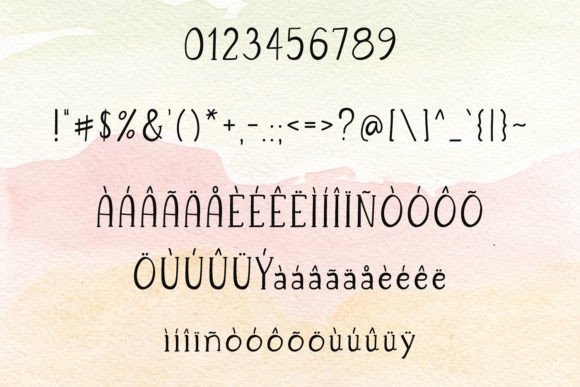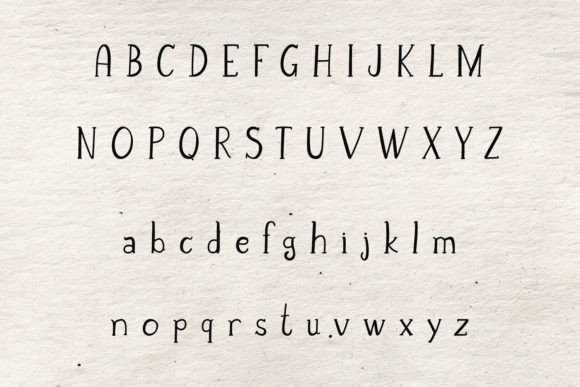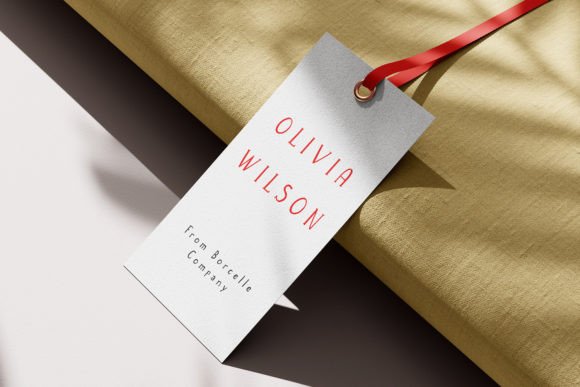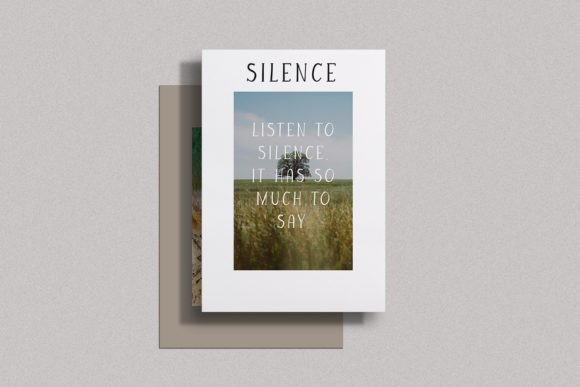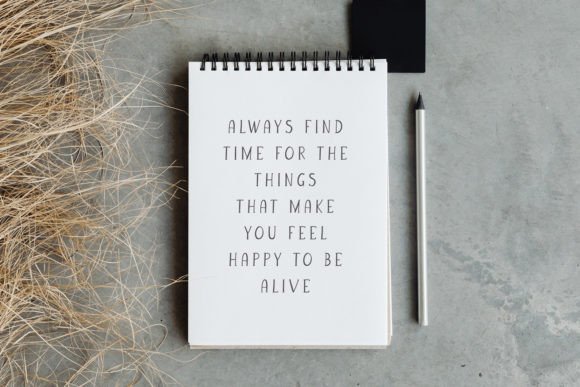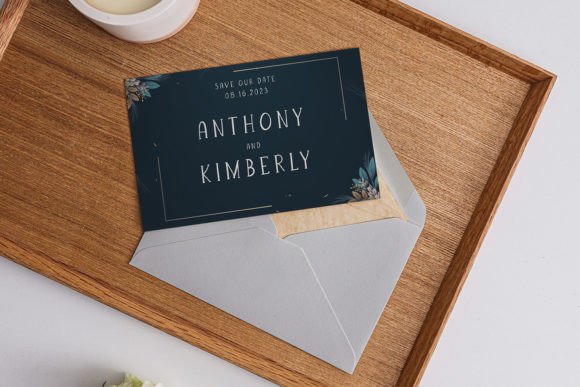
Discover the Whimsy of Caliana Font
Have you ever stared at a blank canvas, searching for the perfect font to bring your design to life? The blank page can be daunting, but it’s also a blank slate, full of endless possibilities. It’s in these moments of creative uncertainty that we often stumble upon the perfect font – one that speaks directly to our design soul.
Enter Caliana Font, a charming handwritten font that embodies the perfect blend of whimsy and playfulness. Designed to add a touch of cuteness to any design project, Caliana Font is the perfect companion for designers looking to inject some personality into their work. Whether you’re creating a children’s book, a greeting card, or a social media graphic, Caliana Font is sure to bring a smile to your face and a dash of fun to your design.
Caliana Font Key Features
- Font Family: Caliana Font is a sans-serif font family.
- Unique Characteristics: Caliana Font features a clean and modern design with a subtle rounded edge, making it suitable for various design applications, including corporate branding, digital signage, and publishing.
Designer Review: Caliana Font
Overall, I think Caliana is a solid choice for a sans-serif font. ✨ It’s clean, modern, and has a friendly feel to it. The designer has done a great job of balancing elegance with approachability. ✨ The font is highly legible, even at smaller sizes, which is essential for digital design.
One of the things that stands out about Caliana is its versatility. ✨ It comes in a wide range of weights and styles, from thin to bold, and each one feels well-designed and consistent with the overall aesthetic of the font. This makes it easy to use in a variety of contexts, from headings and titles to body text and captions.
- Highly legible, even at small sizes
- Wide range of weights and styles available
- Clean, modern aesthetic
- Feels friendly and approachable
- Some users may find the font too clean or minimalist
- Lack of unique or distinctive features
- Not particularly suitable for formal or traditional contexts
- May not stand out in crowded digital environments
Overall, I’d say Caliana is a solid choice for designers looking for a clean, modern sans-serif font. While it may not be the most unique or exciting font out there, it’s well-designed and highly functional, making it a great choice for a wide range of projects.
Getting the Most Out of Caliana Font
To get the most out of Caliana Font, consider the following tips:
– Use Caliana for titles and headings to create visual impact.
– Pair Caliana with other fonts to create a unique and interesting look.
– Experiment with different font sizes and styles to create visual interest.
Caliana Font is commonly used for:
– Creative projects, such as graphic design and digital art.
– Branding and marketing materials, such as logos and business cards.
– Educational materials, such as textbooks and presentations.
Alternatives to Caliana Font
Oswald is a sans-serif font that is similar to Caliana Font in terms of its clean and modern design. It is a great choice for headings and titles, and is particularly well-suited for digital use. Oswald is a bit more condensed than Caliana Font, making it a good option for designers who want to create a sense of energy and dynamism.
Use Oswald Font when you want to create a modern and edgy look, and need a font that can stand out in a crowded digital landscape.
Lato is a sans-serif font that is designed to be highly legible, making it a great choice for body text. It has a clean and modern design, but is a bit more rounded than Caliana Font, giving it a softer and more approachable feel.
Use Lato Font when you want to create a clean and modern design that is easy to read, and need a font that can work well in a variety of contexts.